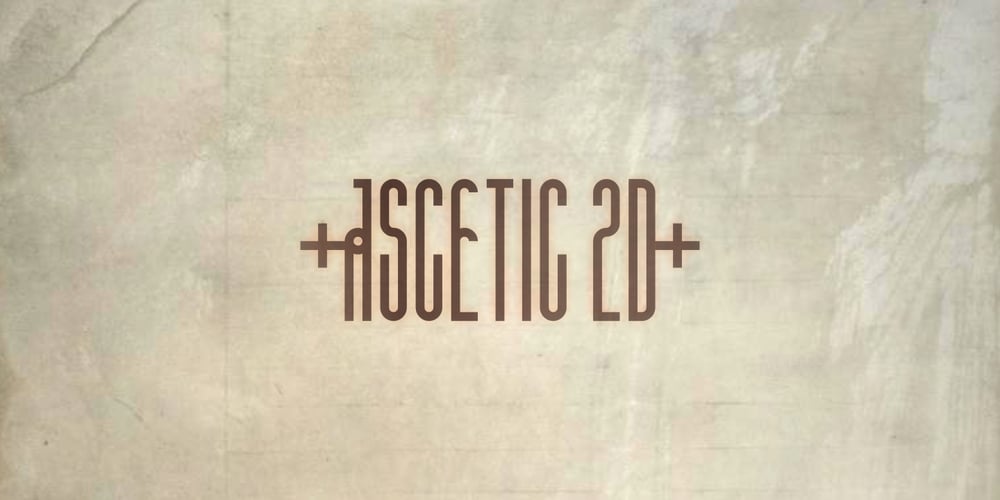
Ascetic 2D
Ascetic 2D font
Ascetic 2D Font Family was designed by Lukyan Turetskyy, Danylo Turetskyy and published by 2D Typo. Ascetic 2D contains 2 styles and family package options. This decorative font is based on Cyrillic Vyaz of XV-XVI centuries. This type of letters were used as display faces in sacred texts. In Vyaz, the letters are characteristically fitted to each other so the letter sequences look as one solid ornamental frieze. The font is rich in discretionary ligatures which help to accentuate the style of Vyaz. In addition to letters and standard characters there is a number of monograms and Christian symbols. These and other features are available in OTF format.